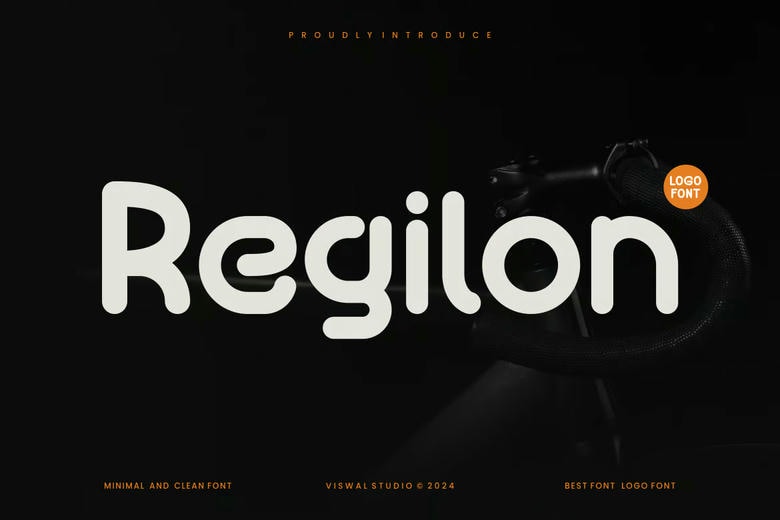
Regilon is a Sans Serif Font. The font is suitable for badges, labels, logos, brands, magazines, posters, etc. Our fonts feature upper and lower case, numbers and punctuation, multilingual support and OpenType features. For amazing designs, you can mix them with other fonts as a complement.
Regilon Sans Serif Font